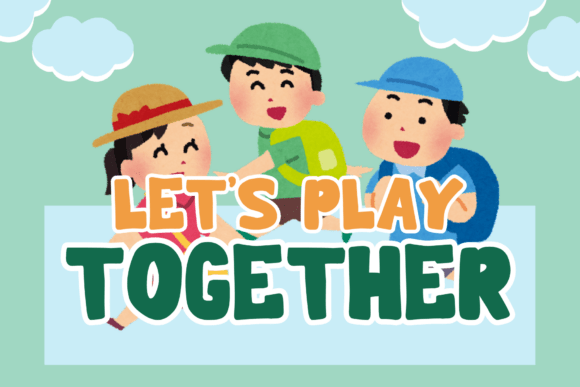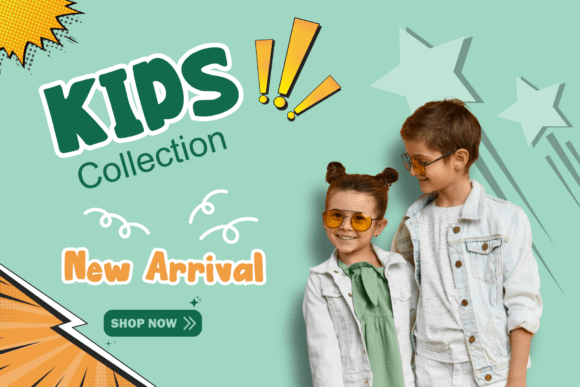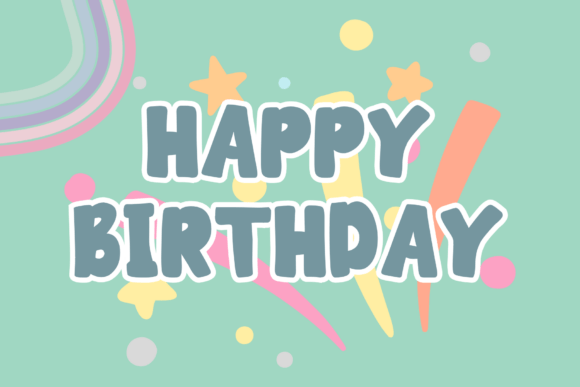
Bocil Font
Infuse your design with a splash of creativity with our unique font that combines bold adult outlines with the innocent scribble of a child’s handwriting. Each character is an artful blend of upper- and lowercase letters punctuated with numbers, offering an interesting subtlety to your text. This font also comes equipped with multilingual support, effortlessly promoting inclusivity in your graphical venture. Its blend of playful complexity makes it an ideal choice for book covers, cinema marquees, comic book credits, poster designs, eye-catching banners, distinctive logos, branding efforts, and engaging sticker designs. With this versatile and vibrant font, let every letter tell its story!